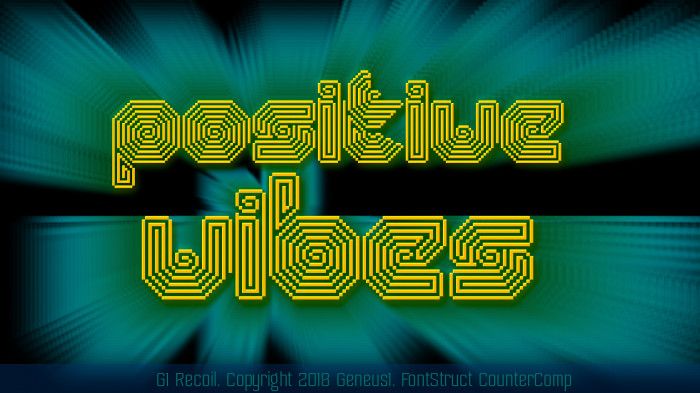
Beautifully hypnotising spiral glyphs. I love how the direction of the pixel-lines creates different tonal values.
I'm with four, hypnotising treatment of glyphs.
I would have tried to continue using a single continuous line in each of the glyphs, but I know the difficulties of doing that here. Great font, master.
Such a simple counter, so well balanced and so efective!
Great looking font!